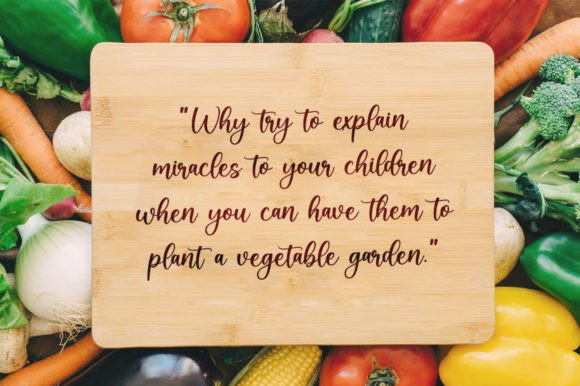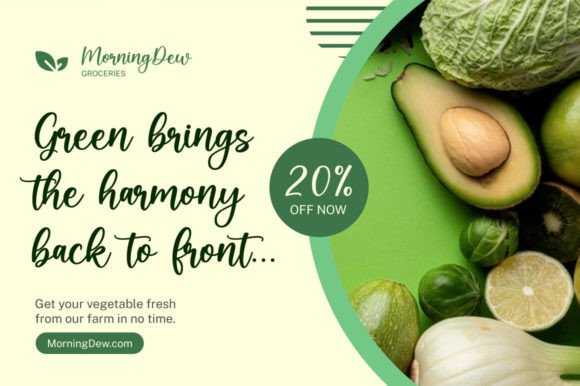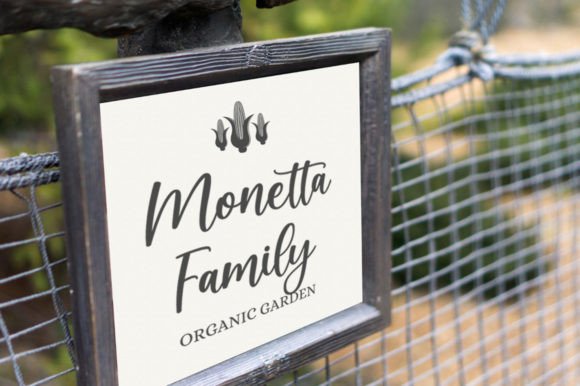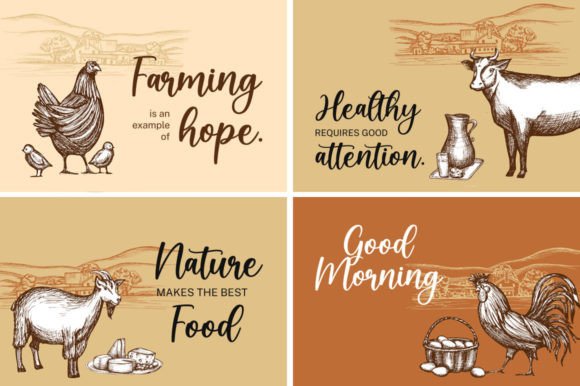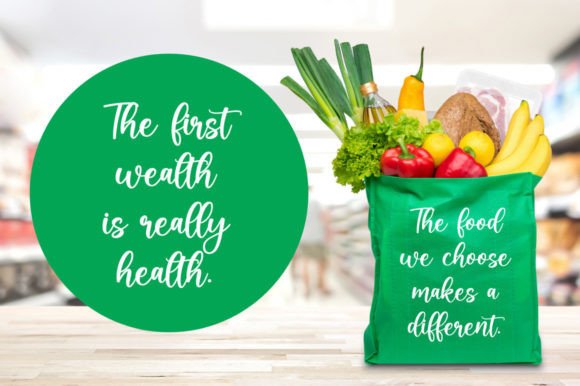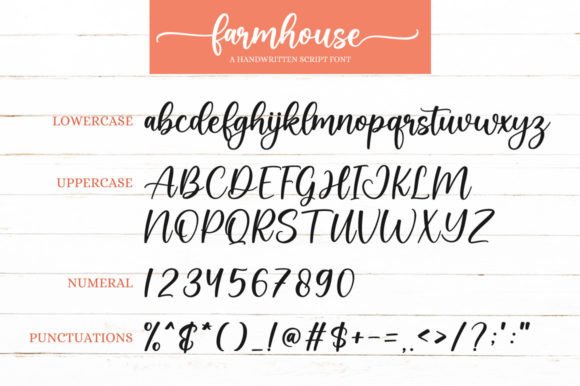
Discover the Charm of Farmhouse Font: A Delicate and Elegant Handwritten Font
Are you a designer or crafter looking for a font that exudes elegance and sophistication? Look no further than the Farmhouse Font. This beautiful, handwritten font is perfect for a wide range of design projects, from rustic wedding invitations to elegant branding materials. In this article, we’ll take a closer look at the Farmhouse Font, its features, and how you can use it to elevate your designs.
Farmhouse Font is a delicate, elegant, and flowing handwritten font that is sure to capture the hearts of designers and crafters alike. Its beautiful and well-balanced characters make it a versatile font that can be used in a variety of design projects. Whether you’re creating a rustic wedding invitation, a elegant logo, or a charming packaging design, Farmhouse Font is the perfect choice.
So, what makes Farmhouse Font so special? Here are just a few of its key features:
- Delicate and Elegant: Farmhouse Font is a beautifully crafted font that exudes elegance and sophistication. Its delicate lines and flowing curves make it perfect for designs that require a touch of refinement.
- Well-Balanced Characters: Each character in Farmhouse Font is carefully crafted to ensure that it is well-balanced and visually appealing. This makes it easy to use in a wide range of design projects.
- PUA Encoded: Farmhouse Font is PUA (Private Use Area) encoded, which means that you can access all of the glyphs and swashes with ease. This makes it easy to customize your designs and add your own personal touch.
How to Use Farmhouse Font in Your Designs
Farmhouse Font is a versatile font that can be used in a wide range of design projects. Here are just a few ideas to get you started:
- Wedding Invitations: Farmhouse Font is perfect for rustic wedding invitations, elegant save-the-date cards, and charming wedding stationery.
- Branding Materials: Use Farmhouse Font to create elegant logos, business cards, and packaging designs that will help your brand stand out.
- Signs and Displays: Farmhouse Font is a great choice for signs, displays, and other promotional materials that require a touch of elegance and sophistication.
Tips for Getting the Most Out of Farmhouse Font
Here are a few tips for getting the most out of Farmhouse Font:
- Experiment with Different Sizes: Farmhouse Font looks great in a variety of sizes, from large headings to smaller body text. Experiment with different sizes to find the one that works best for your design.
- Pair it with Other Fonts: Farmhouse Font pairs well with a variety of other fonts, including serif and sans-serif fonts. Experiment with different pairings to find the one that works best for your design.
- Use the Swashes and Glyphs: Don’t be afraid to get creative with the swashes and glyphs in Farmhouse Font. These can add a touch of elegance and sophistication to your designs.
Farmhouse Font is a beautiful, elegant, and versatile handwritten font that is perfect for designers and crafters. Its delicate lines, flowing curves, and well-balanced characters make it a great choice for a wide range of design projects. With its PUA encoding, you can access all of the glyphs and swashes with ease, making it easy to customize your designs and add your own personal touch. Whether you’re creating a rustic wedding invitation, an elegant logo, or a charming packaging design, Farmhouse Font is the perfect choice.